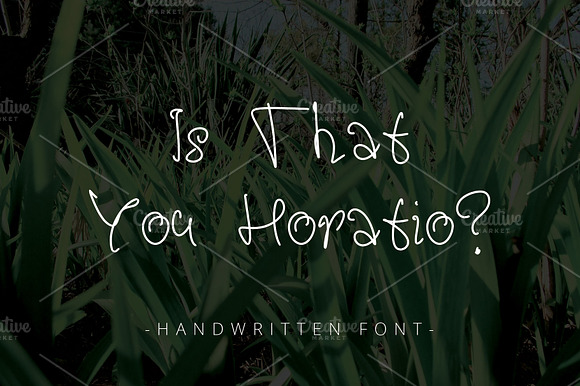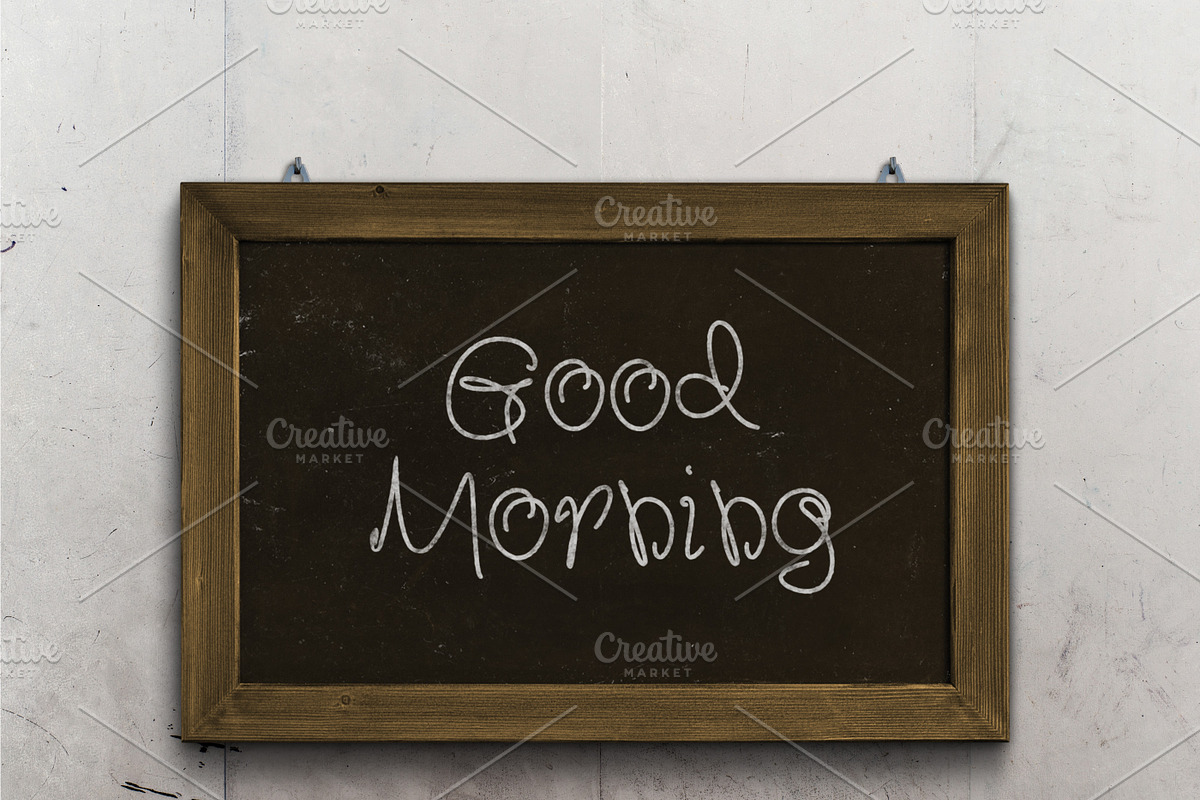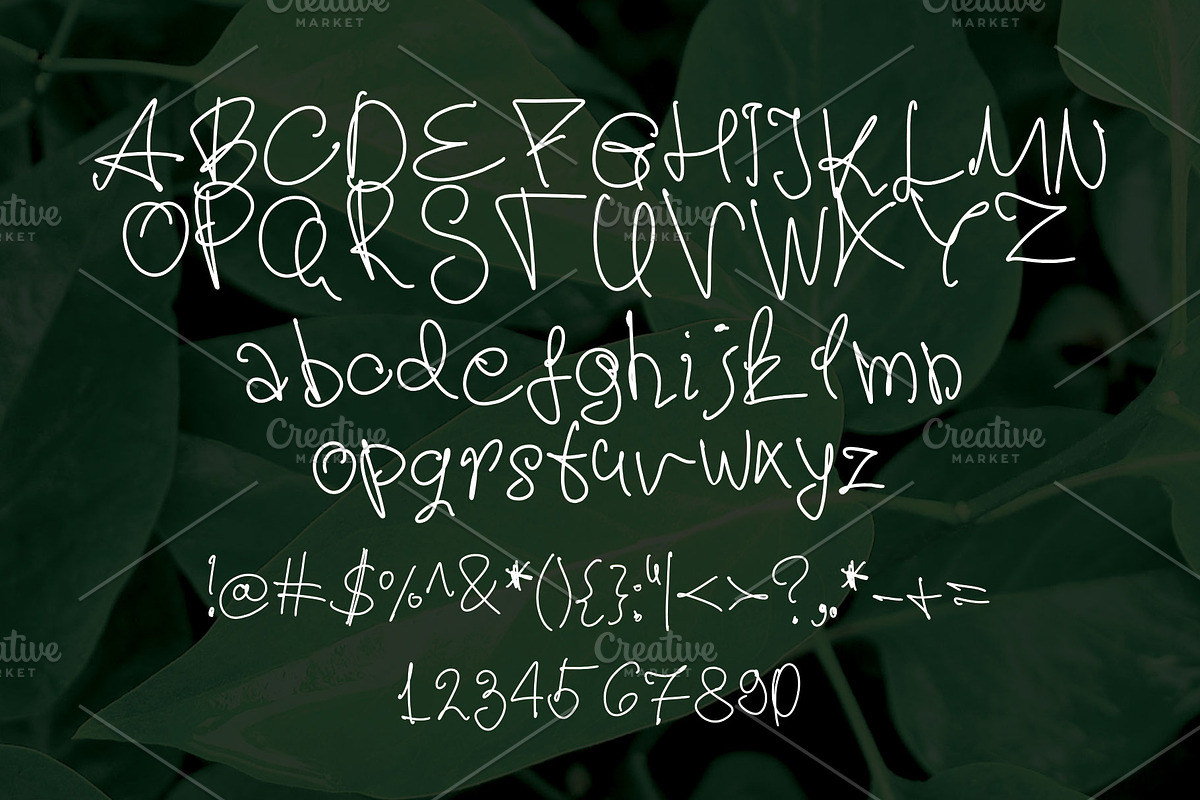
Is That You Horatio? ~ Font ~
Friendly handmade font.
Is That You Horatio? ~ Font ~ by MHLY fits naturally into Branding, posters, packaging, typography.